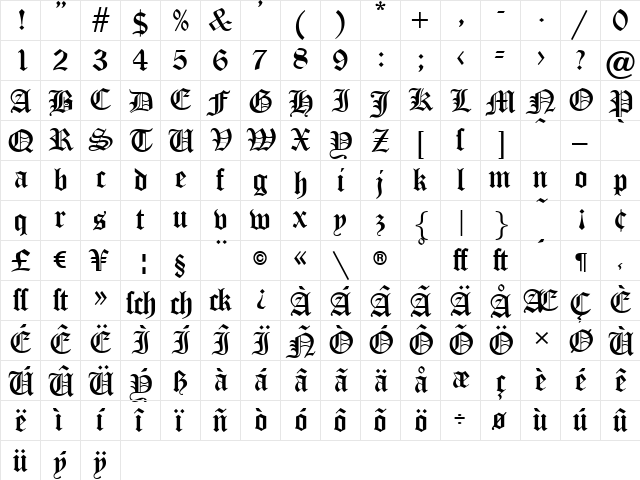
Old English Five Regular
Design Context for Old English Five Typeface
Old English Five is a composed and adaptable typeface that performs quietly and consistently across a wide range of design contexts.